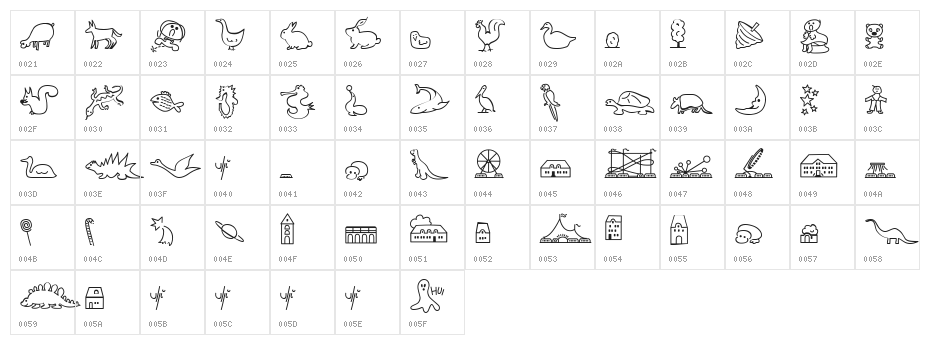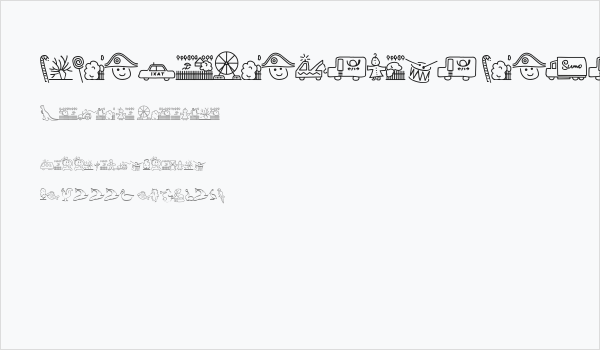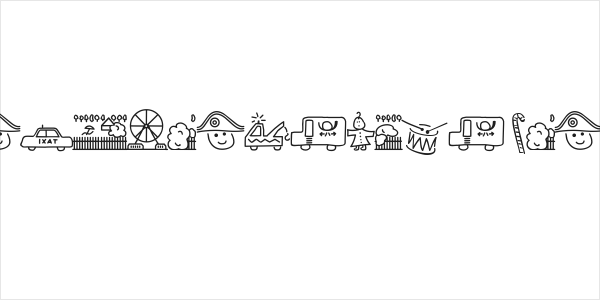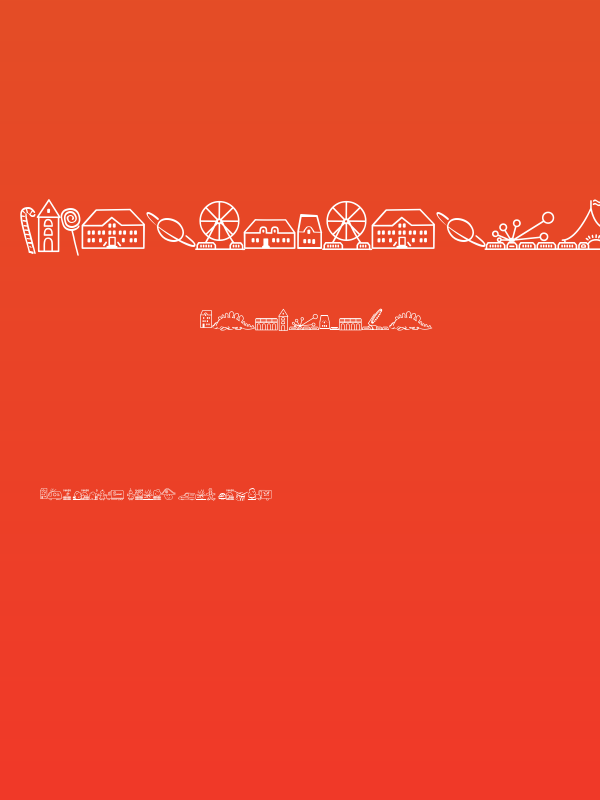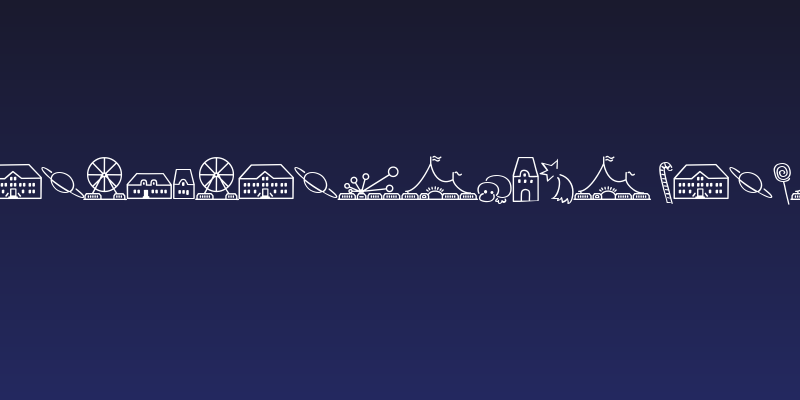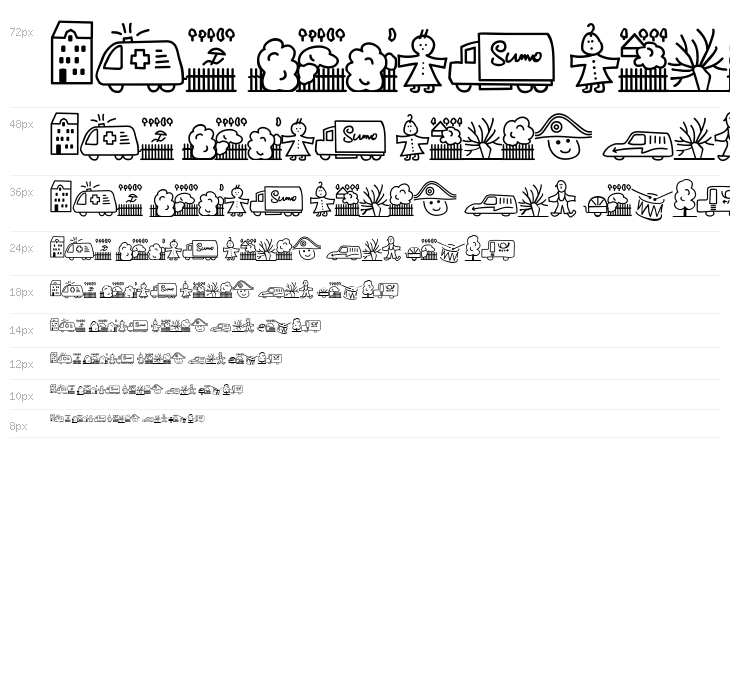
LoKinderDingsbums Links Description
A playful, hand-drawn dingbat font featuring whimsical illustrations of animals, vehicles, buildings, plants, and people, all rendered in a consistent, childlike line art style. The glyphs are pictorial rather than alphanumeric, with a friendly and approachable aesthetic.
| Overall Style | Playful, Whimsical, Childlike, Decorative |
| Use Case | Illustrative elements, icons, decorative borders, educational graphics |
| Proposed Projects | ChildrenΓ’β¬β’s books, educational materials, playful branding, posters, activity sheets, scrapbooking, invitations. |